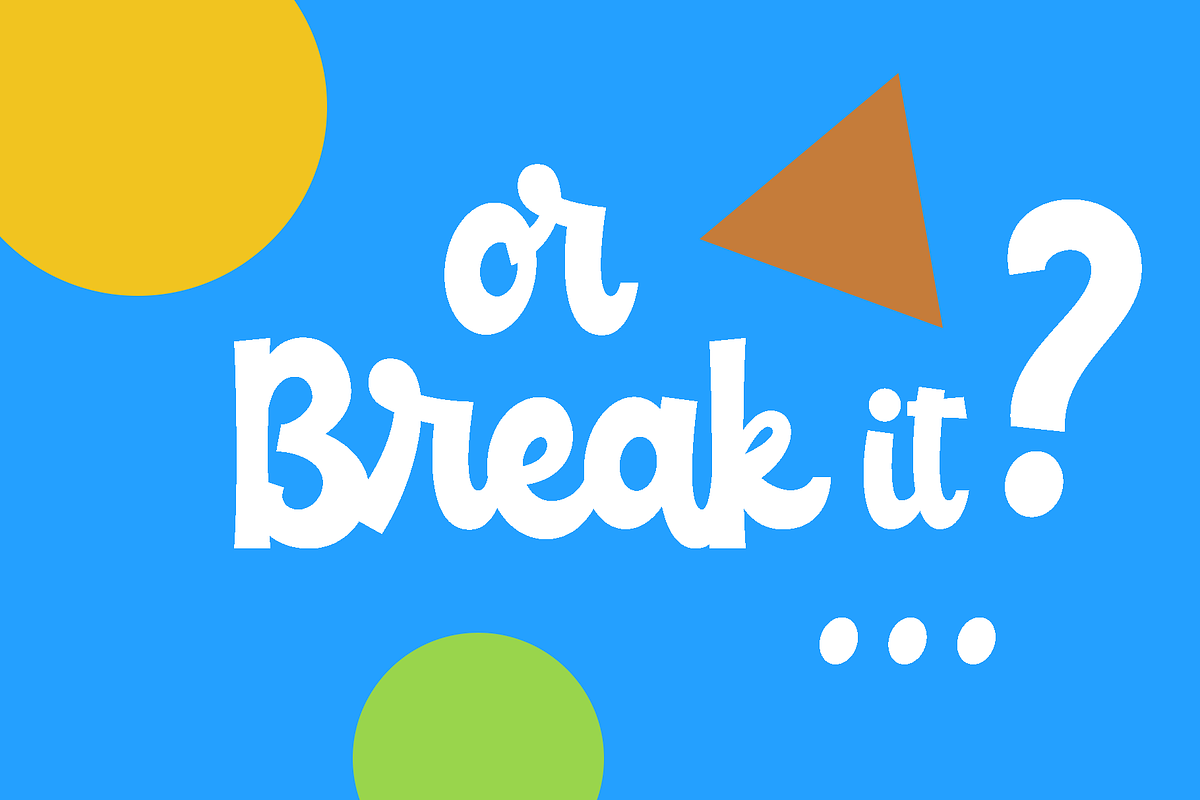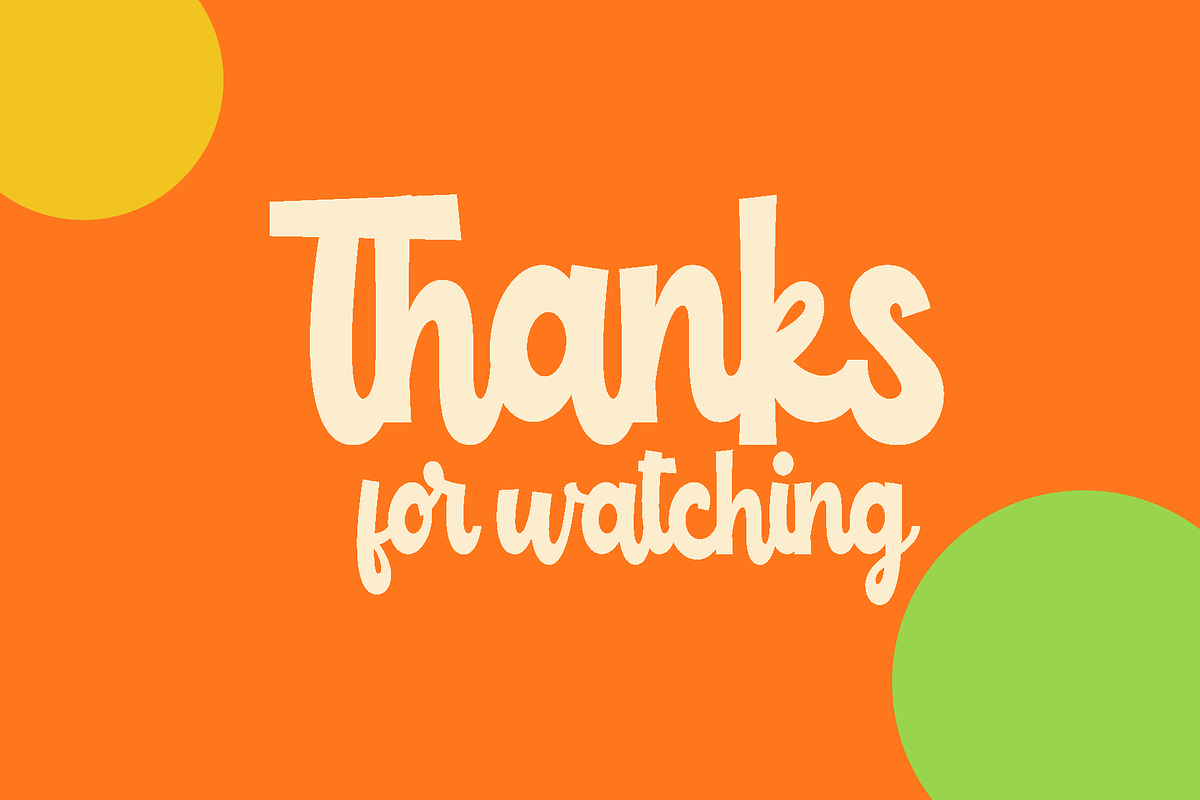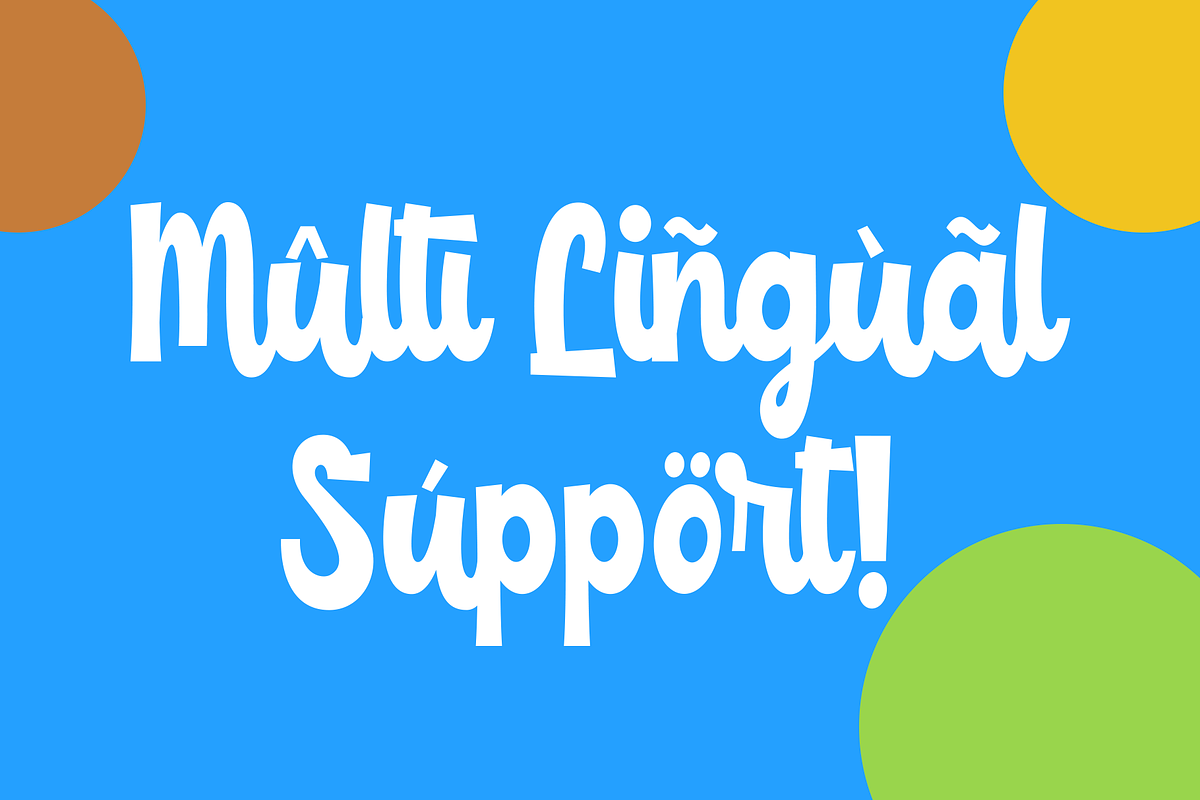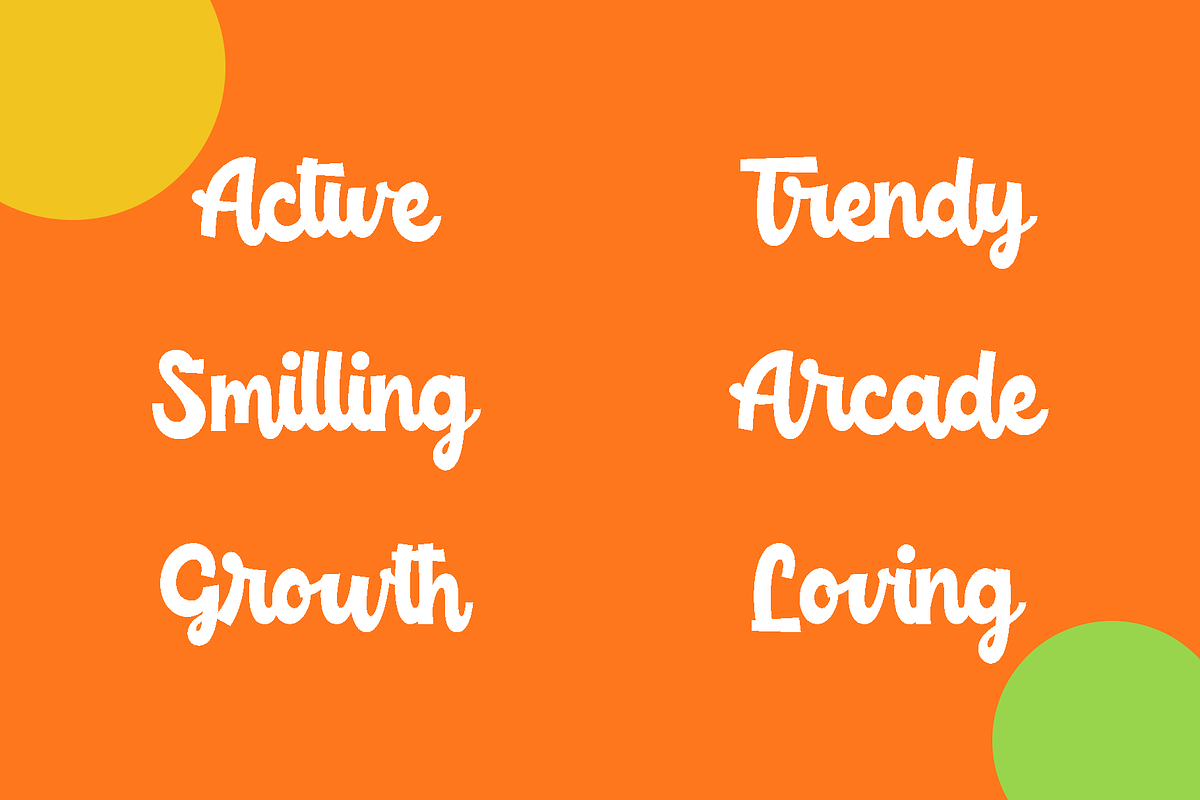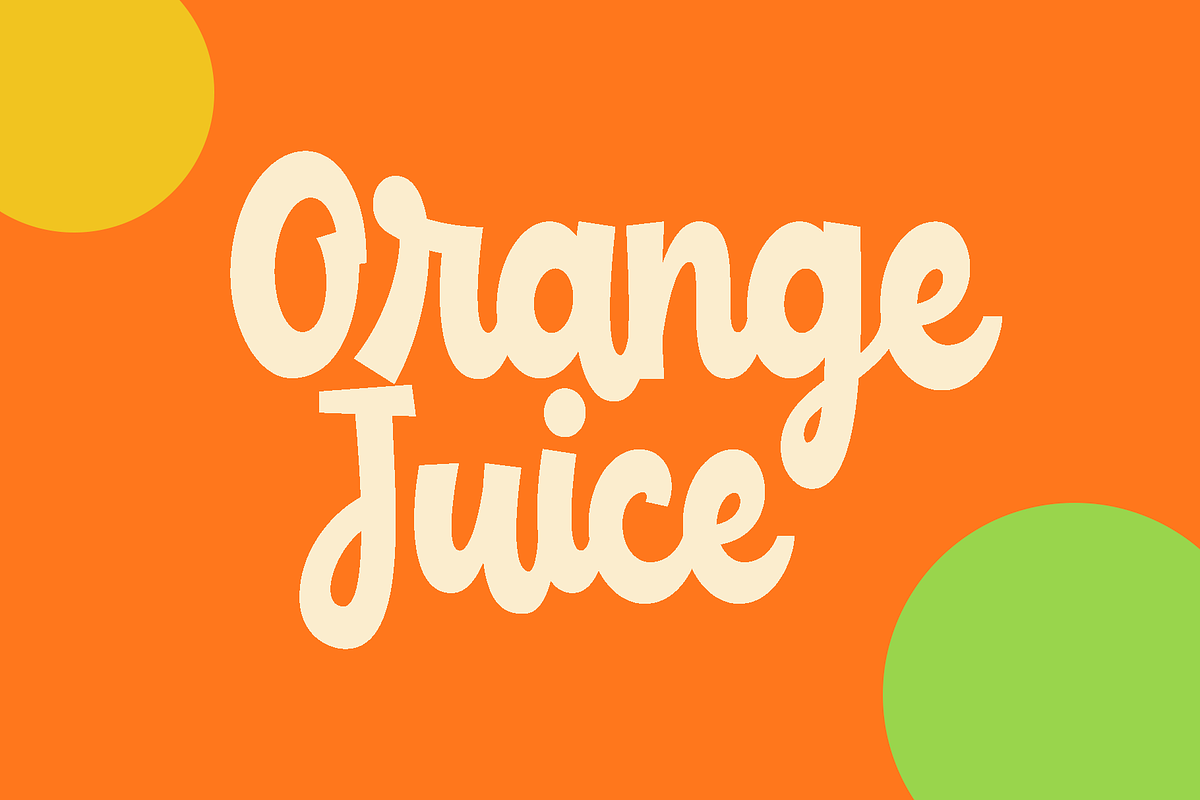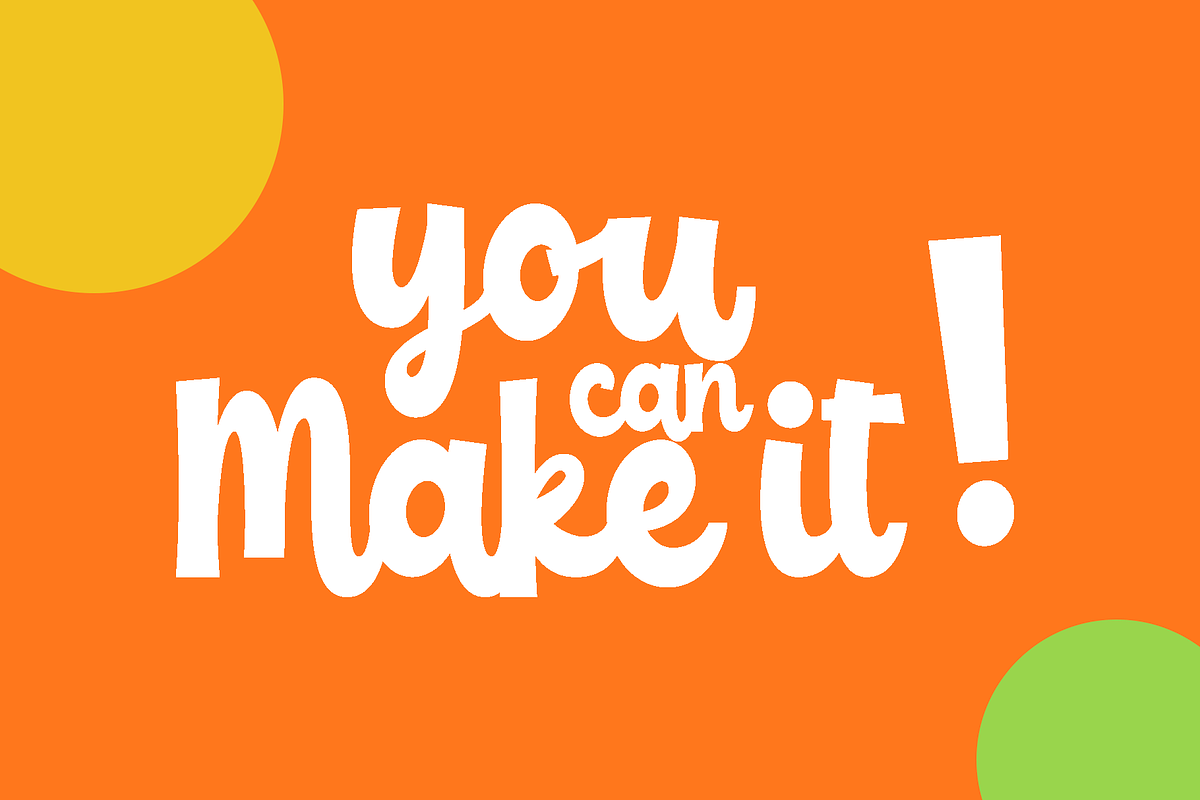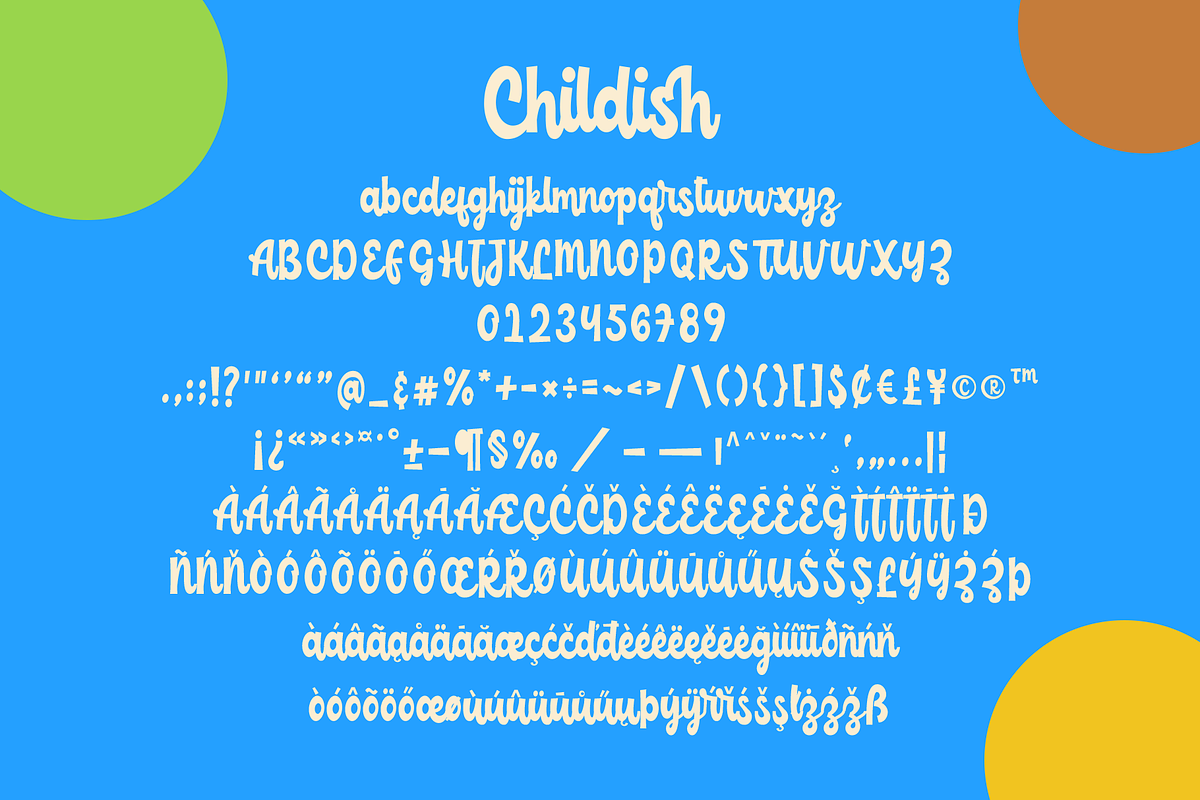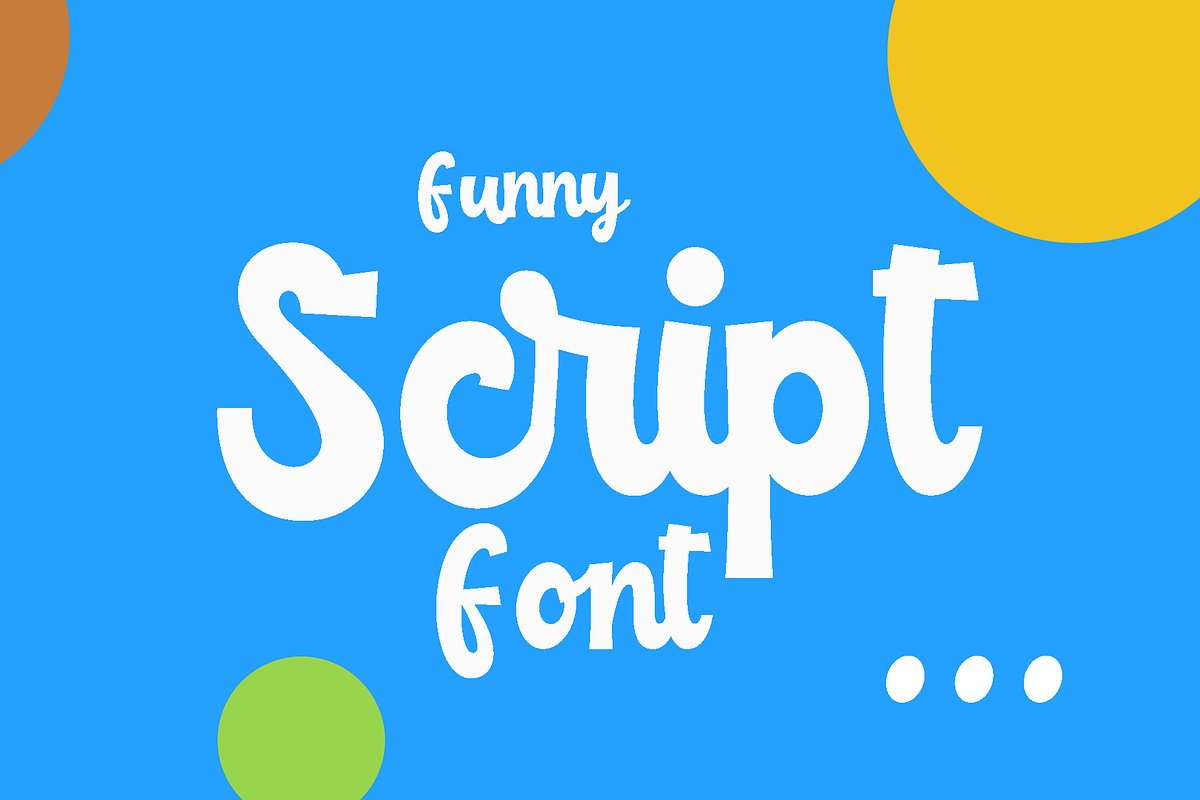
Childish - funny script font
Childish is a funny script font with a natural style, this font is great for your next creative projects such as cartoon project, poster, quotes, album cover, logo, business card, and many other design project.
Childish comes with uppercase letters, lowercase letters, special ligatures, multi lingual, numbers and punctuation